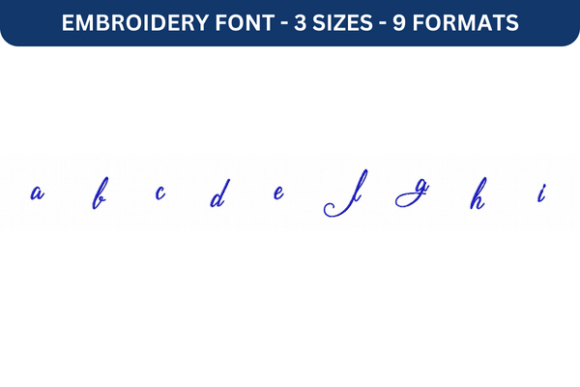
Mathilde Castleland Font Lower a to I
As an embroidery designer with years of experience, I’m always on the lookout for high-quality machine embroidery design assets that can elevate my handmade products and commercial projects. The Mathilde Castleland Font Lower a to I from Creative Fabrica is one such font that caught my attention. After testing it on various fabrics and project types, I’m ready to share my honest evaluation of how this font performs in real-world use.
First Impressions: A Stylish and Versatile Embroidery Font
The Mathilde Castleland Font Lower a to I has a classic, elegant feel that’s perfect for personalized gifts and custom apparel. Its script style is clean yet decorative, making it ideal for names, dates, or short quotes. The level of detail is impressive, with smooth curves and consistent stroke widths that translate well into embroidery. This font has a soft, feminine aesthetic that works well for baby items, nursery decor, and seasonal gifts.
One of the standout features is its versatility. Whether you're working on a tote bag design, a sweatshirt embroidery, or a custom apron, this font adapts well. It also pairs nicely with other design elements, making it a great choice for layered details or as a standalone feature.
Real-World Performance: How It Stitches on Different Fabrics
I tested the Mathilde Castleland Font Lower a to I on several fabric types, including cotton, polyester, and stretchy materials. On standard woven fabrics like cotton, the font stitched smoothly with minimal puckering. The stitch density is well-balanced, avoiding excessive thread buildup that could cause distortion.
On stretchy fabrics, like those used in t-shirts or activewear, the font held up well when using a proper stabilizer. I found that a cutaway stabilizer provided the best support, especially for larger lettering. For smaller hoop sizes, the font still maintained clarity, though I recommend adjusting the stitch density if needed for very tiny text.
When stitching on dark fabrics, the font’s subtle details were visible but not overly prominent. For best results, I suggest using a contrasting thread color to ensure readability. On light-colored fabrics, the font stood out nicely without needing extra embellishments.
Practical Use: From Tote Bags to Handmade Gifts
The Mathilde Castleland Font Lower a to I is particularly useful for creating personalized gifts. I used it on a baby blanket, where the soft script added a delicate touch that complemented the overall design. It also worked well on a kitchen towel and a pillow cover, giving each piece a unique, handmade appeal.
For commercial embroidery projects, this font is a solid choice. It’s suitable for embroidered patches, caps, and even applique design elements. The font’s structure allows for easy scaling, making it ideal for both small and large projects. When used on curved surfaces like caps, the font maintains its shape without distortion, which is a big plus.
Enhancing Product Value and Customer Engagement
Using the Mathilde Castleland Font Lower a to I can significantly enhance the value of your handmade products. Personalized gifts are always a hit, and this font offers a refined look that appeals to a wide audience. Whether you're selling on Etsy, at craft fairs, or in a boutique, the font adds a professional touch that sets your work apart.
From a branding perspective, this font helps maintain consistency across your product line. It’s great for creating printable mockups that showcase your designs in a realistic setting. When paired with high-quality product photography, the font contributes to a polished, cohesive brand image that customers will appreciate.
Embroidery Tips for Optimal Results
To get the best results with the Mathilde Castleland Font Lower a to I, here are a few practical tips:
By following these steps, you’ll be able to maximize the potential of the Mathilde Castleland Font Lower a to I in your embroidery projects. Whether you're creating custom apparel, personalized gifts, or commercial embroidery pieces, this font is a valuable addition to your design assets.
Final Thoughts: A Reliable Choice for Creative Entrepreneurs
After thorough testing and real-world application, I can confidently say that the Mathilde Castleland Font Lower a to I is a reliable and stylish embroidery font. It delivers on quality, versatility, and performance, making it a great option for embroidery designers, Etsy sellers, and small business owners looking to add a personal touch to their products.